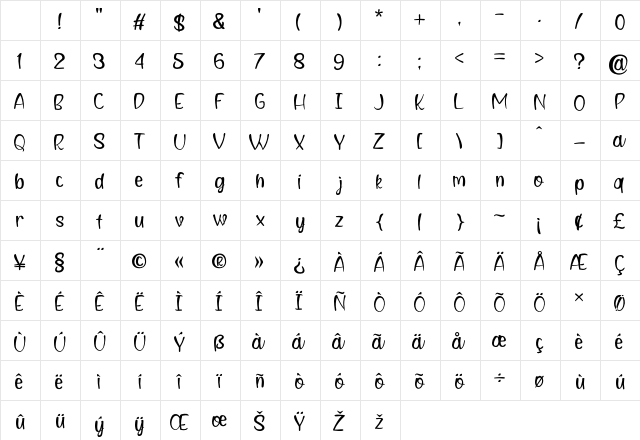
Complete Wilson Richard - Personal Use Regular glyph index. Displaying only characters natively supported by Wilson Richard - Personal Use Regular font.
Wilson Richard - Personal Use is a composed and adaptable typeface that performs quietly and consistently across a wide range of design contexts.